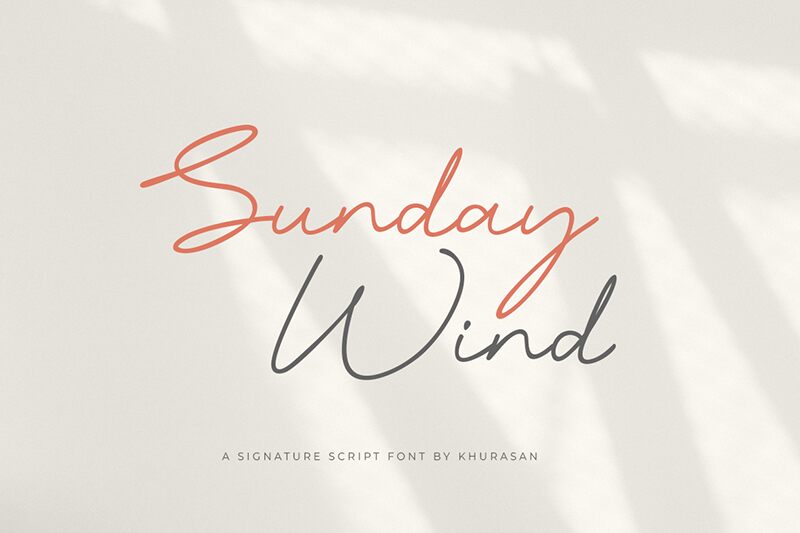
Sunday Wind
Sunday Wind, designed by Khurasan, is an exquisite signature script font that exudes elegance and sophistication.
With its extra-light weight and semi-expanded width, this font is perfect for adding a touch of grace to wedding invitations, luxury branding projects, and high-end fashion editorials. Its fluid strokes and delicate curves beautifully capture the essence of handwritten calligraphy, making Sunday Wind an ideal choice for any project that aims to evoke a sense of refinement and beauty.
Let Sunday Wind elevate your designs with its timeless charm.